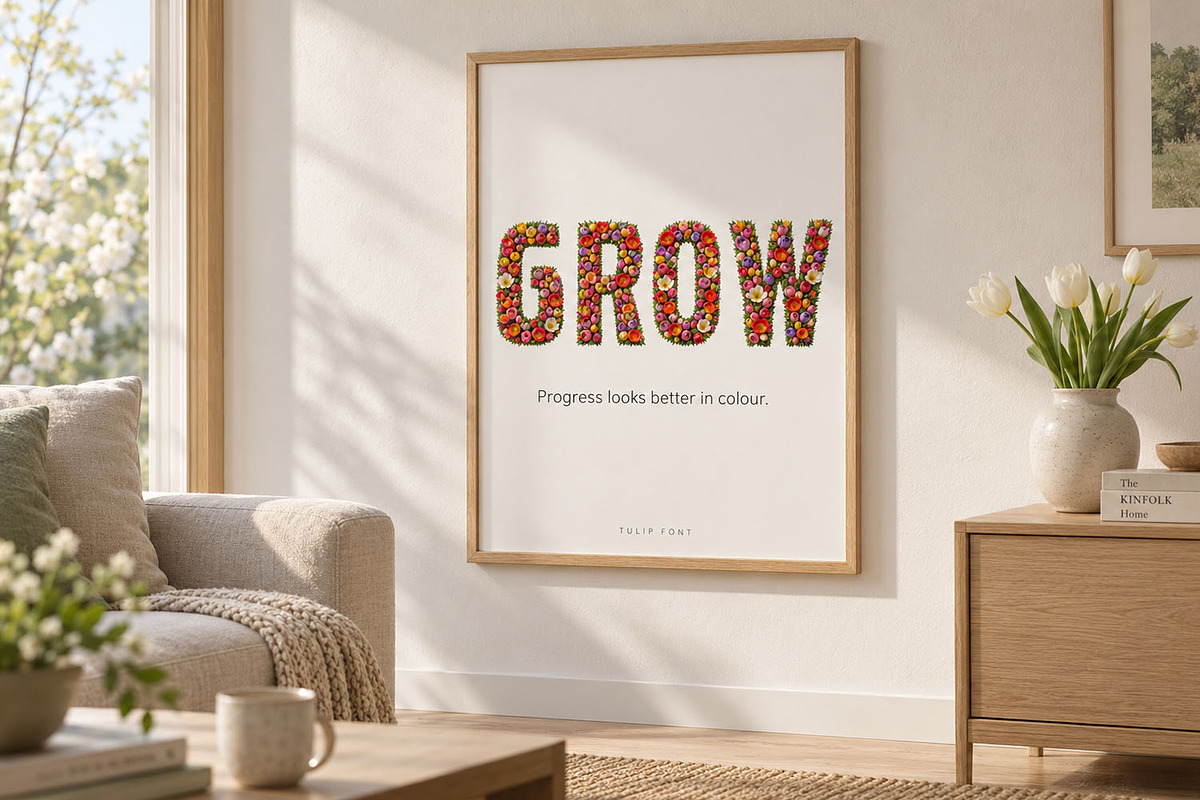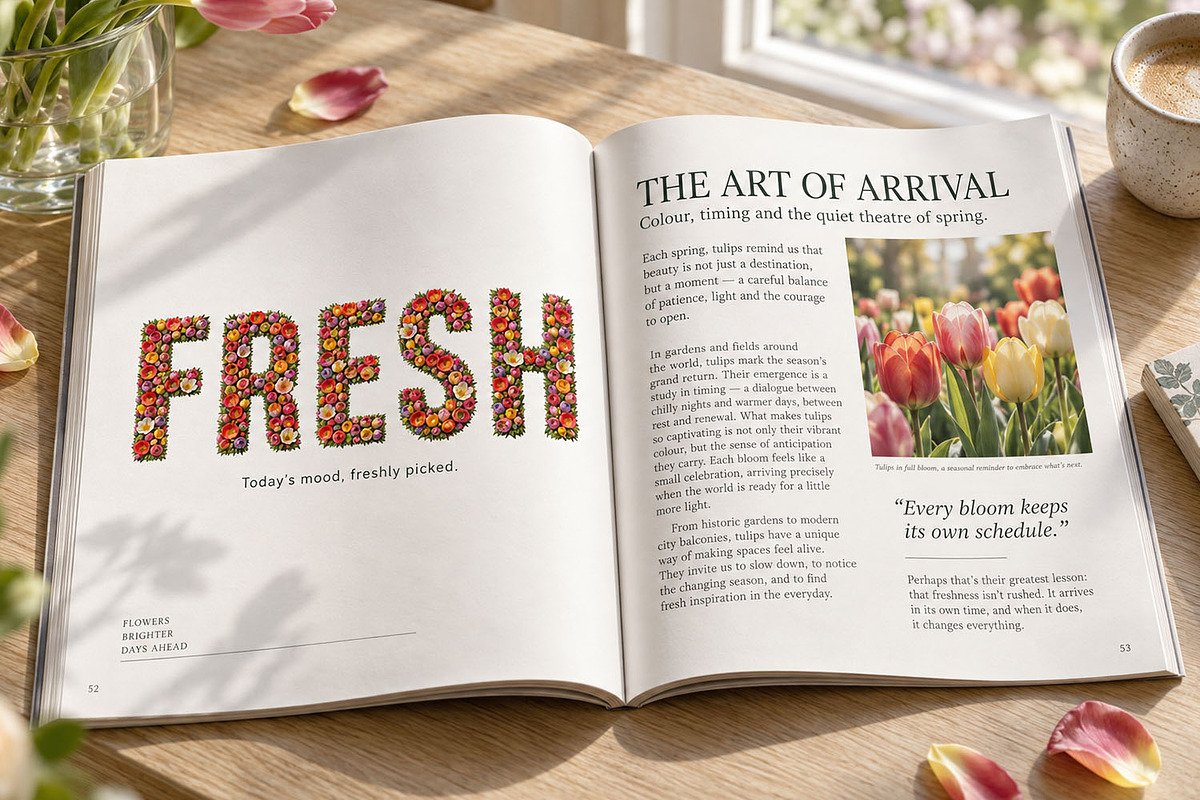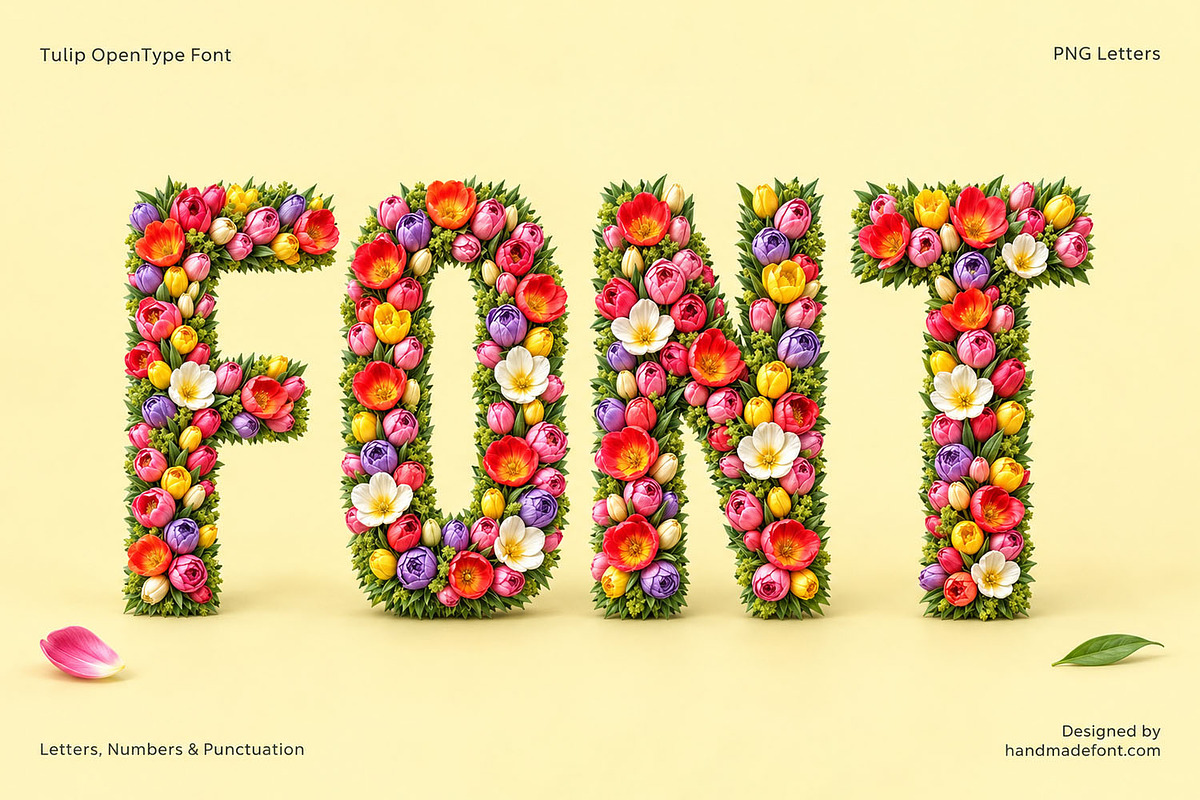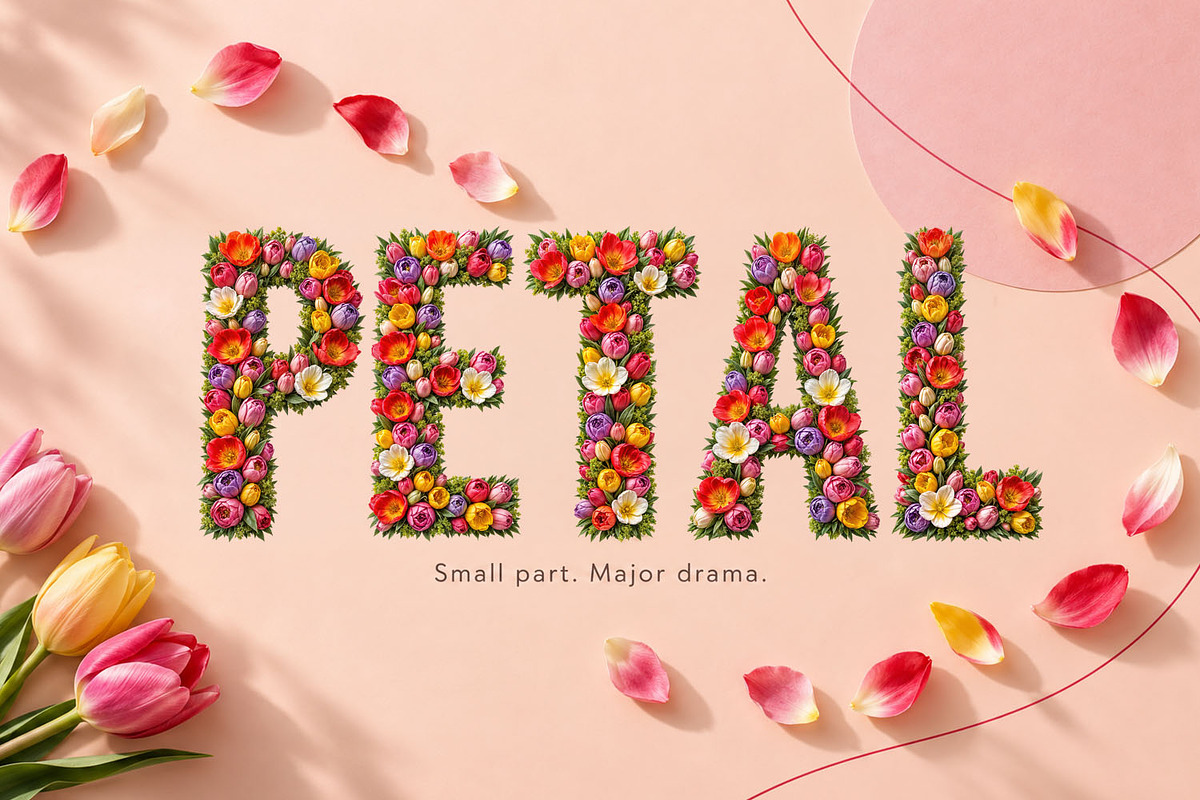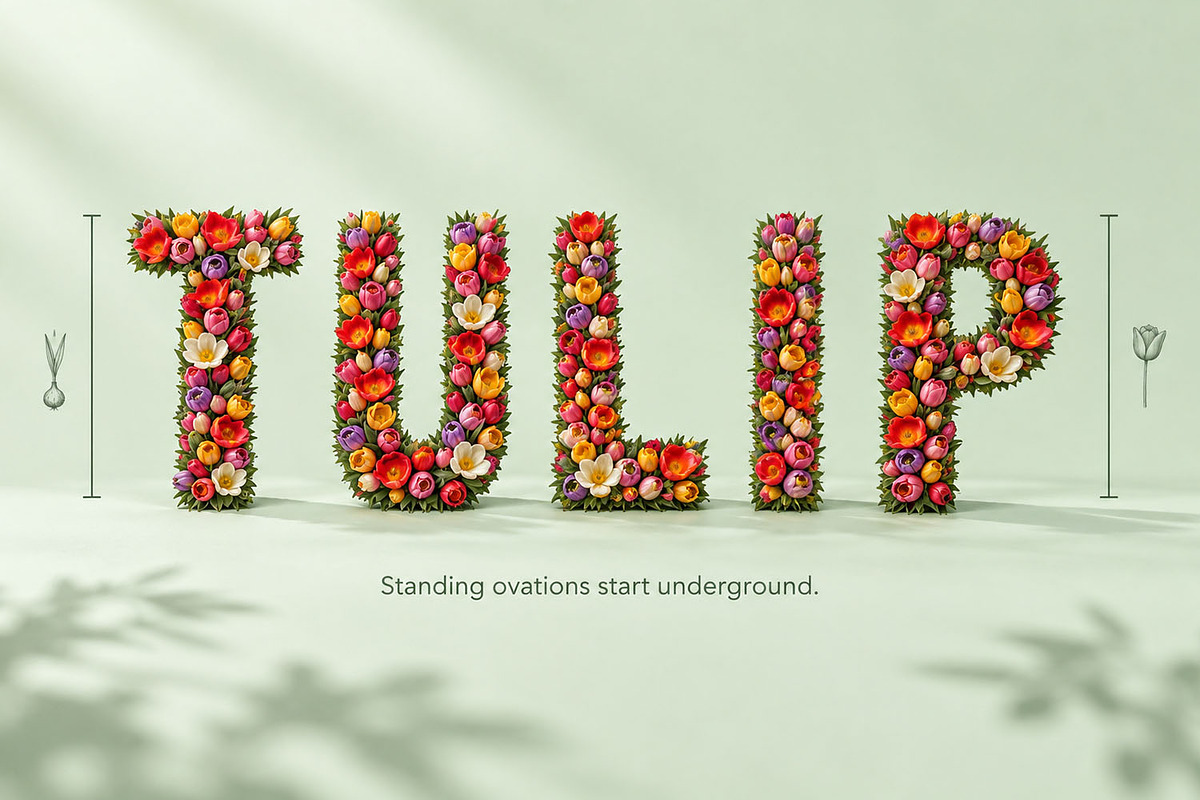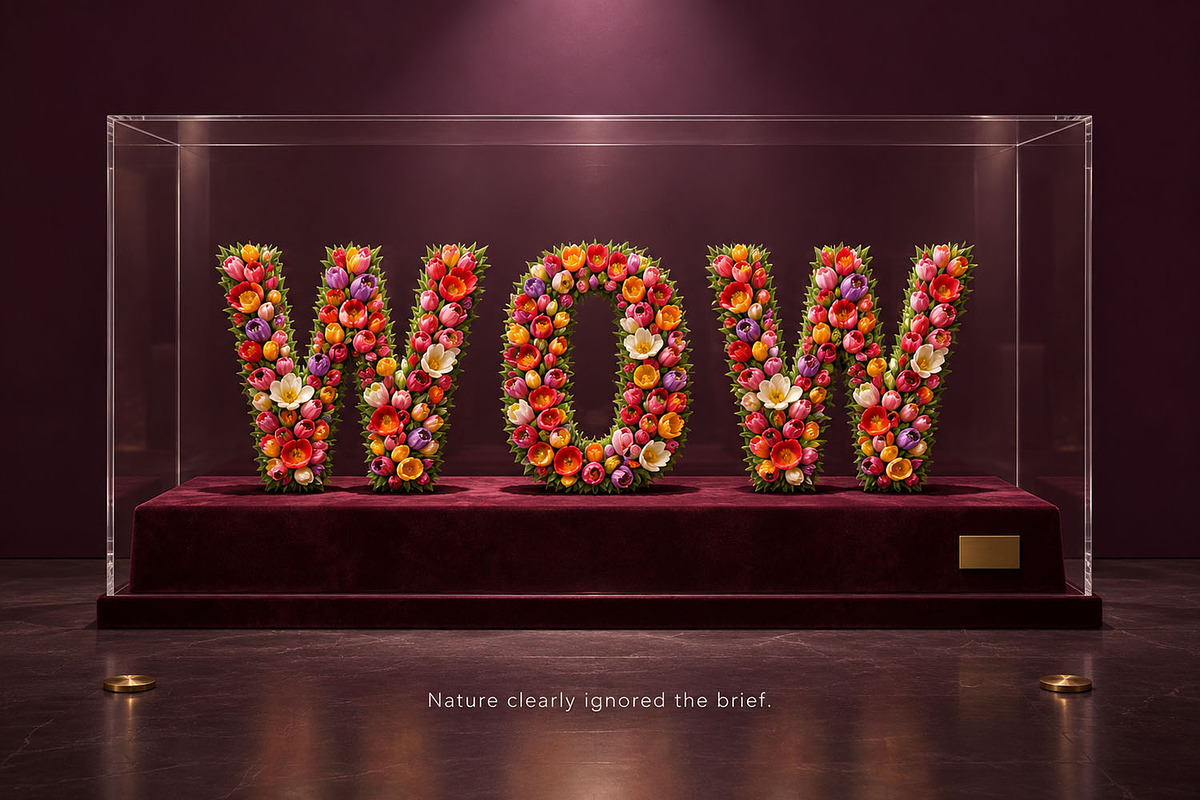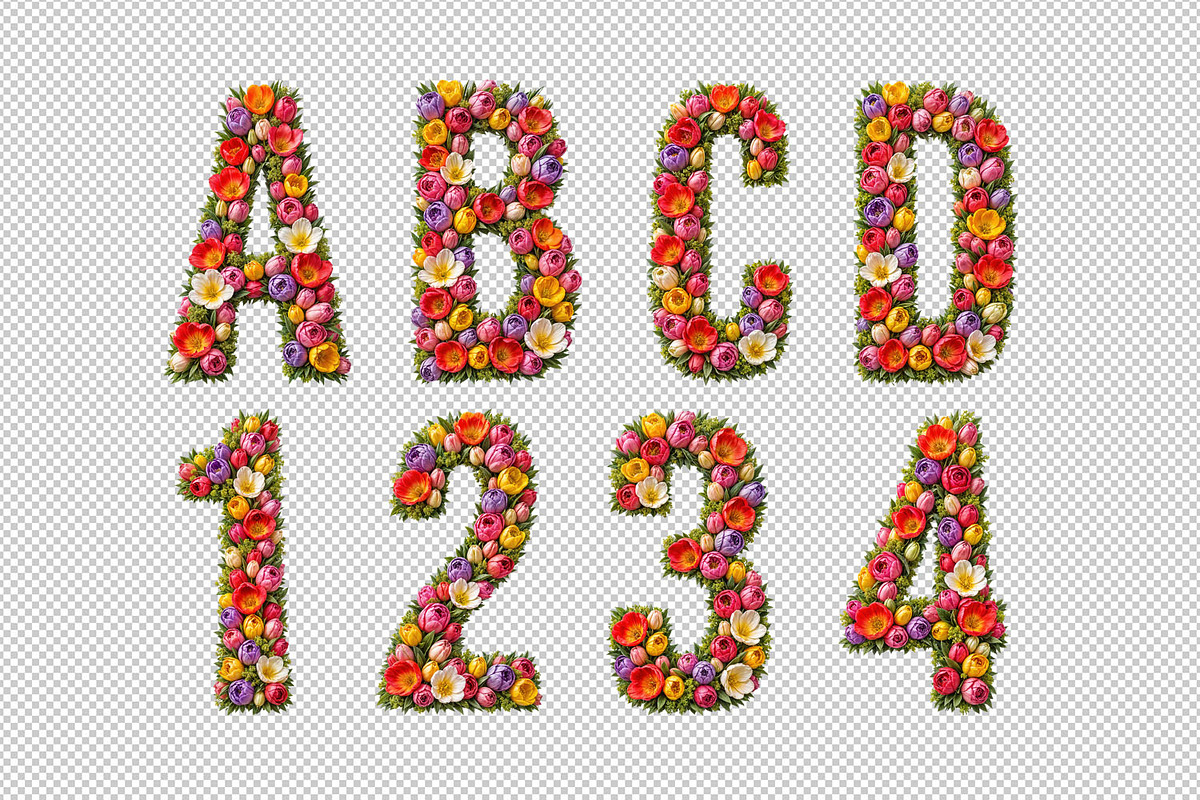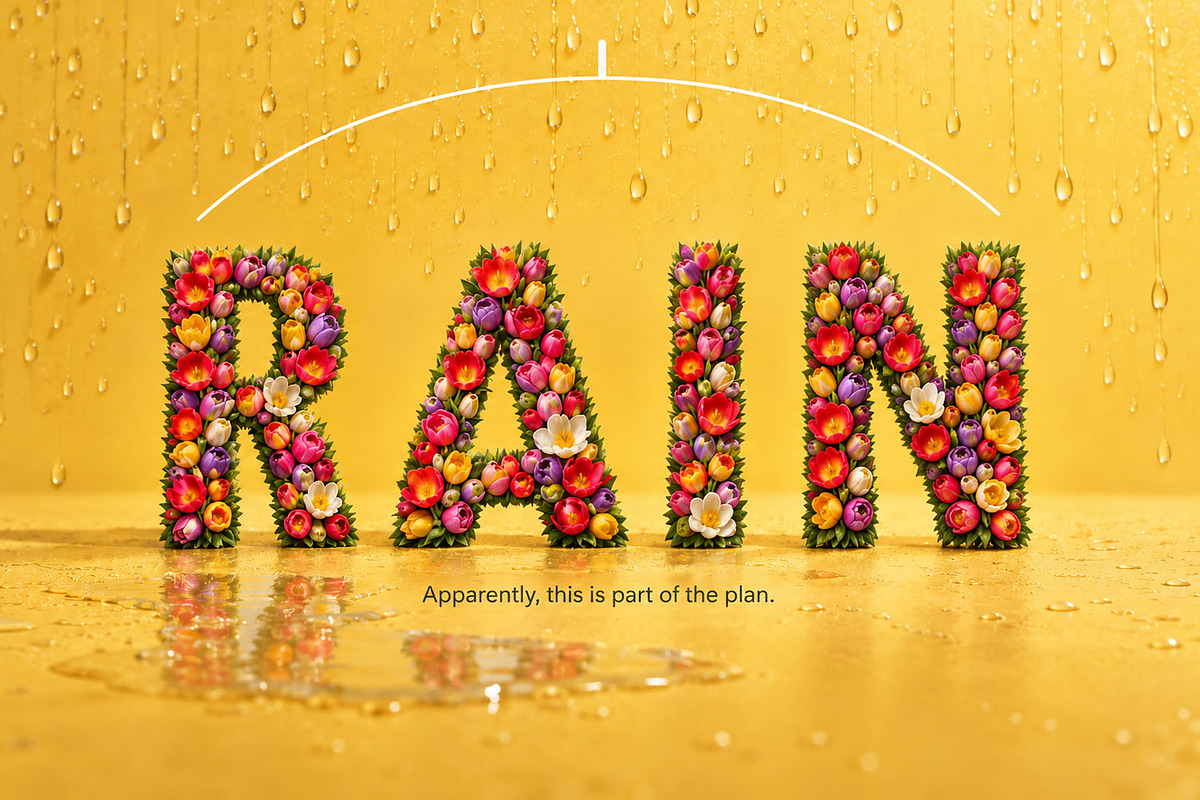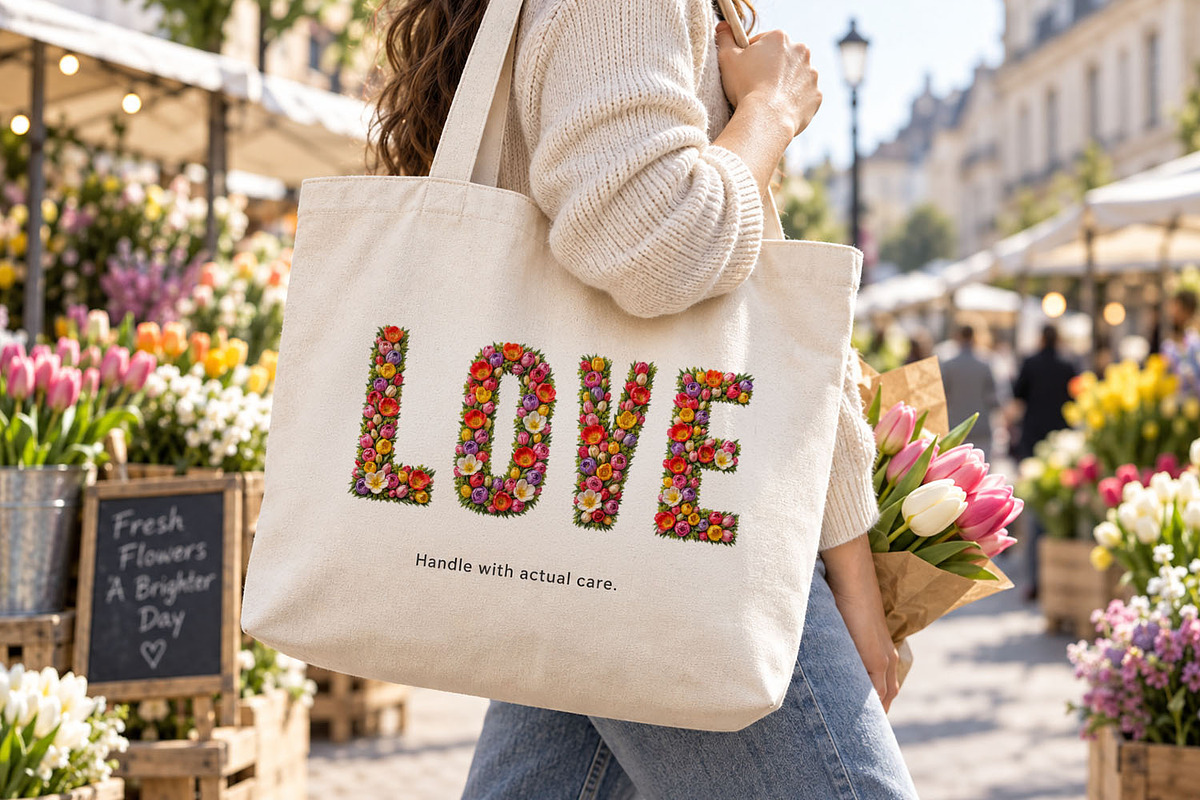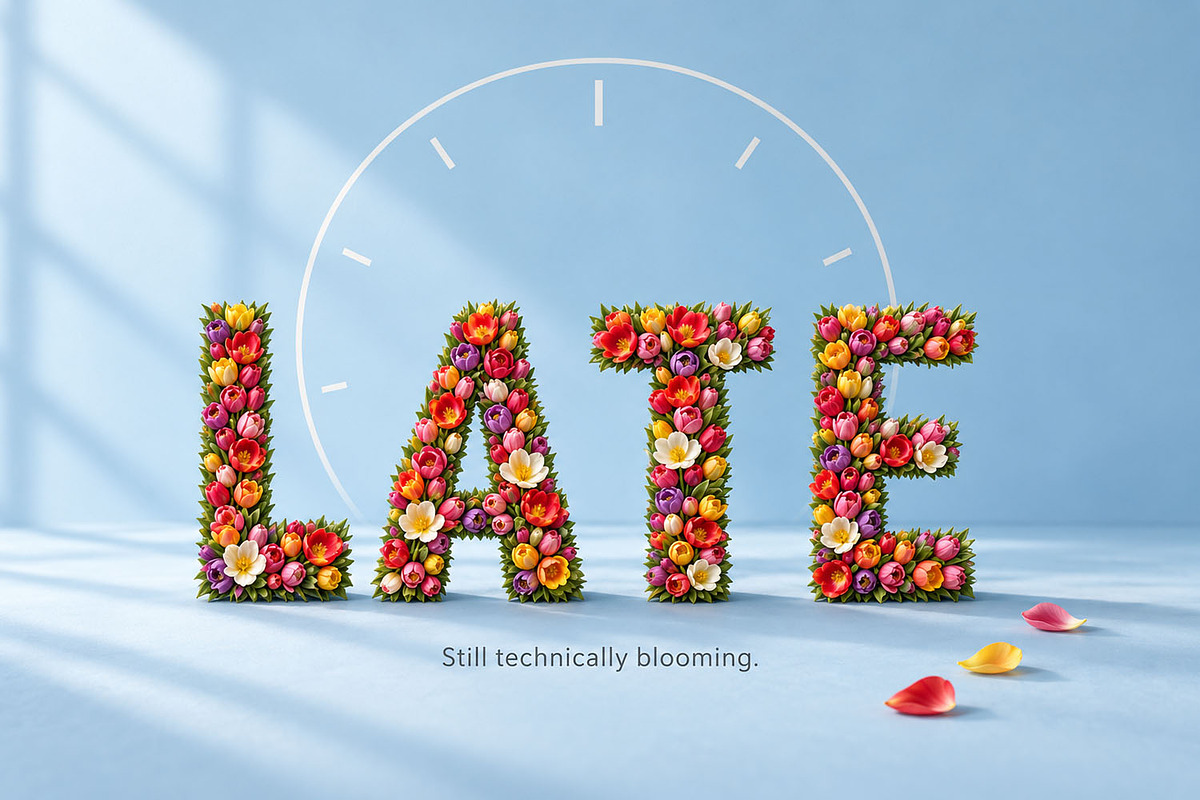
Tulip Font
Tulip Font is a vibrant botanical typeface created from colorful tulips, delicate blossoms, and fresh green foliage. Each character feels like a miniature spring garden, bringing natural beauty, joyful energy, and handcrafted charm to every composition. Its bold floral shapes are perfect for wedding invitations, seasonal posters, greeting cards, branding, packaging, social media, and cheerful editorial designs. The complete OpenType font makes typing easy, while every individual letter is also supplied as a high-quality PNG file with a transparent background. Tulip Font includes letters, numbers, and punctuation for flexible, eye-catching creative projects filled with color, warmth, and bright blooming personality.
Letters : ABCDEFGHIJKLMNOPQRSTUVWXYZÄËÏÖÜŸÁÉÍÓÚÝÀÈÌÒÙÂÊÎÔÛÃÑÕÅÇŠŽ
Numbers : 0 1 2 3 4 5 6 7 8 9
Others : ! ? - . ' $ € % & # @